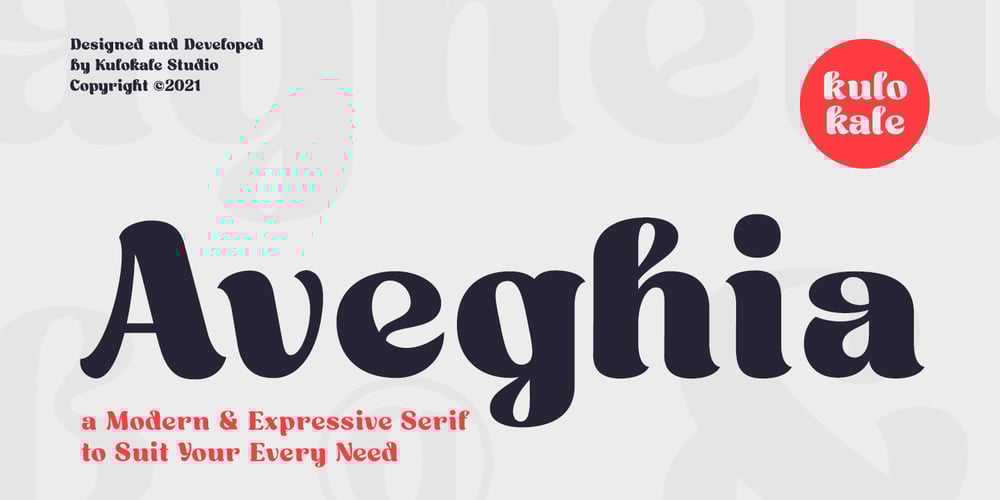
Aveghia Font Family was designed by Eko Nur Cahyo and published by Kulokale. Aveghia contains 1 styles and family package options. Aveghia is a modern and expressive serif font. Aveghia is well-suited for advertising, branding, logotypes, packaging, titles, headlines and editorial design.This font is encoded with Unicode PUA, which allows full access to all additional characters without having special design software. Mac users can use Font Book, and Windows users can use Character Map to view and copy one of the extra characters to paste into your favorite text editor / application.We hope you enjoy the font. Thanks for purchasing and have fun!